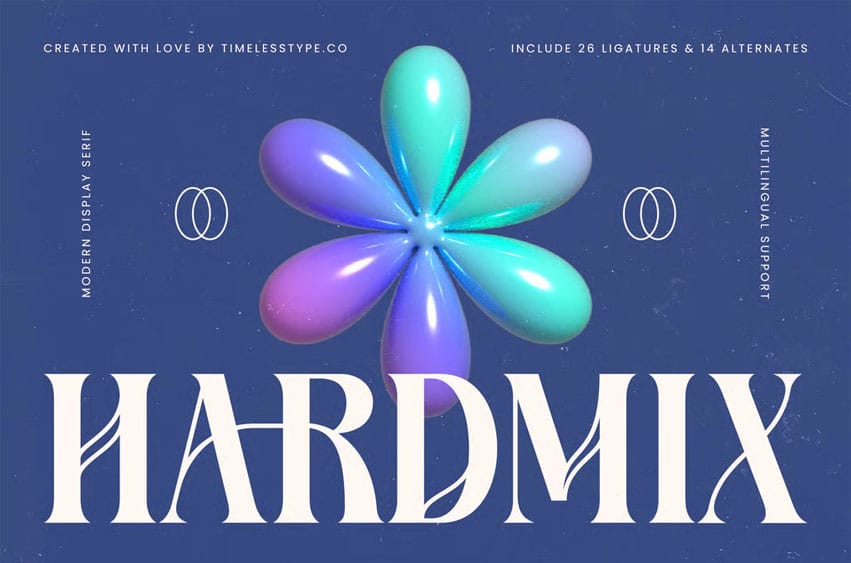
Hardmix Font is a modern display serif font that merges contemporary aesthetics with bold elegance. Featuring 26 ligatures and 14 alternates, this typeface brings powerful contrast and refined detail — perfect for luxury branding, editorial titles, packaging, and creative posters that demand sophistication with a modern twist.
Its tall proportions and stylish curves exude confidence and clarity, while the subtle flourishes add personality and flair. Designed for visual impact, Hardmix is ideal for designers who want to combine professionalism and creativity in a single, timeless serif font.